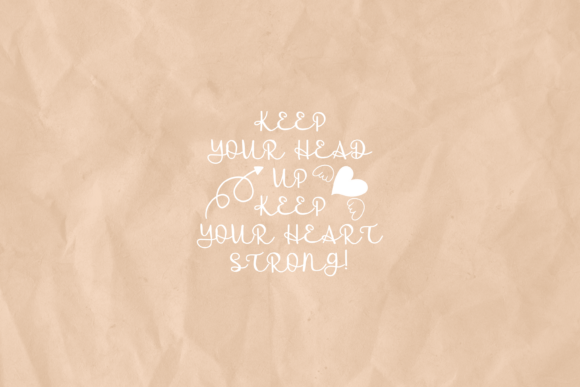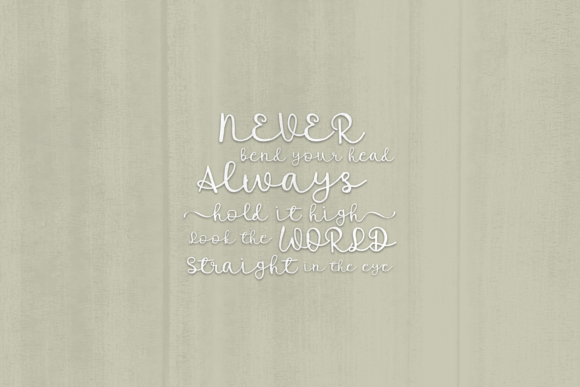
Introducing Head High Font: Elevate Your Designs with a Wavy and Beautiful Script Font
Are you tired of using the same old fonts in your design projects? Do you want to add a touch of elegance and sophistication to your creations? Look no further than Head High Font, a stunning script font that is sure to take your designs to the next level. In this article, we’ll dive into the features and benefits of Head High Font, and explore how it can help you create standout designs that capture attention.
The Beauty of Head High Font
Head High Font is a wavy and beautiful script font that is designed to inspire creativity and add a touch of glamour to any design project. Its incredibly smooth feel makes it perfect for a wide range of applications, from branding and advertising to packaging and digital media. With its flowing lines and elegant curves, Head High Font is sure to add a level of sophistication and refinement to your designs.
One of the standout features of Head High Font is its PUA (Private Use Area) encoding. This means that you can access all of the glyphs and swashes with ease, giving you complete creative control over your designs. With PUA encoding, you can easily insert special characters, ligatures, and other decorative elements into your text, allowing you to create unique and eye-catching designs that stand out from the crowd.
Head High Font is perfect for designers and crafters who want to add a touch of elegance and sophistication to their creations. Whether you’re working on a branding project, creating social media graphics, or designing packaging, Head High Font is the perfect choice. Its versatility and flexibility make it suitable for a wide range of applications, from digital media to print materials.
Key Features of Head High Font
- Wavy and beautiful script font with an incredibly smooth feel
- Perfect for a wide range of design projects, from branding and advertising to packaging and digital media
- Suitable for designers and crafters who want to add a touch of elegance and sophistication to their creations
- Easy to use and customize, with a range of special characters and ligatures
How to Use Head High Font in Your Designs
Tips and Tricks for Getting the Most Out of Head High Font
Here are a few tips and tricks for getting the most out of Head High Font:
- Experiment with different font sizes and colors to create visual interest and hierarchy
- Use the glyphs and swashes to add decorative elements and personality to your designs
- Combine Head High Font with other fonts to create a unique and eye-catching typography
- Use Head High Font to create stunning headlines, titles, and captions that capture attention
Head High Font is a stunning script font that is sure to elevate your designs to the next level. With its wavy and beautiful lines, incredibly smooth feel, and PUA encoding, it’s the perfect choice for designers and crafters who want to add a touch of elegance and sophistication to their creations. Whether you’re working on a branding project, creating social media graphics, or designing packaging, Head High Font is the perfect choice. So why wait? Download Head High Font today and start creating standout designs that capture attention!